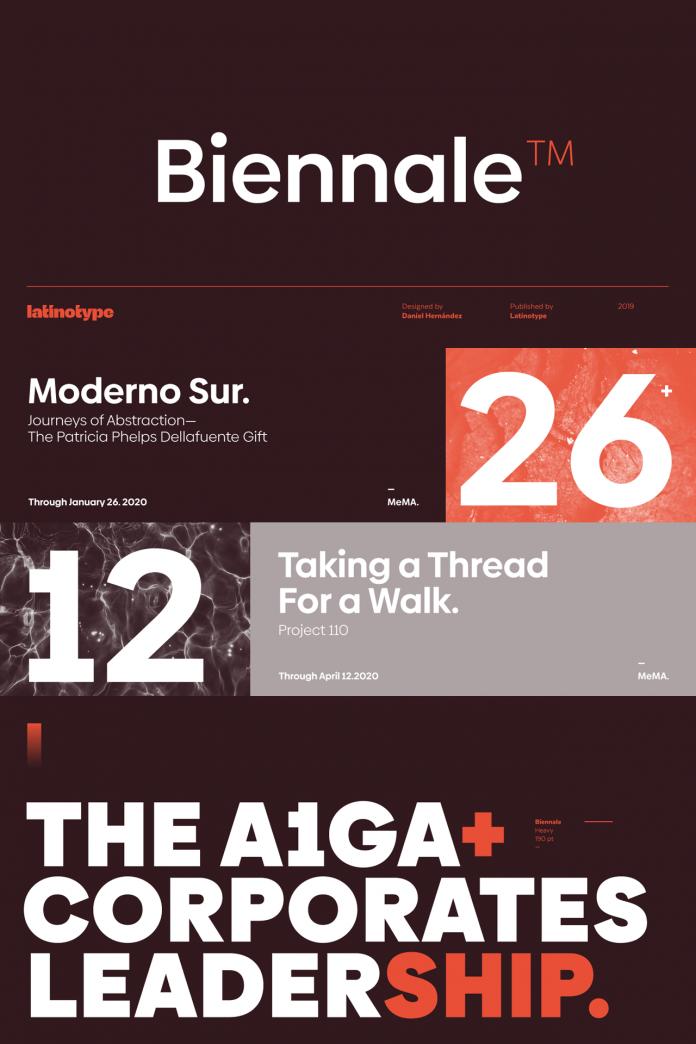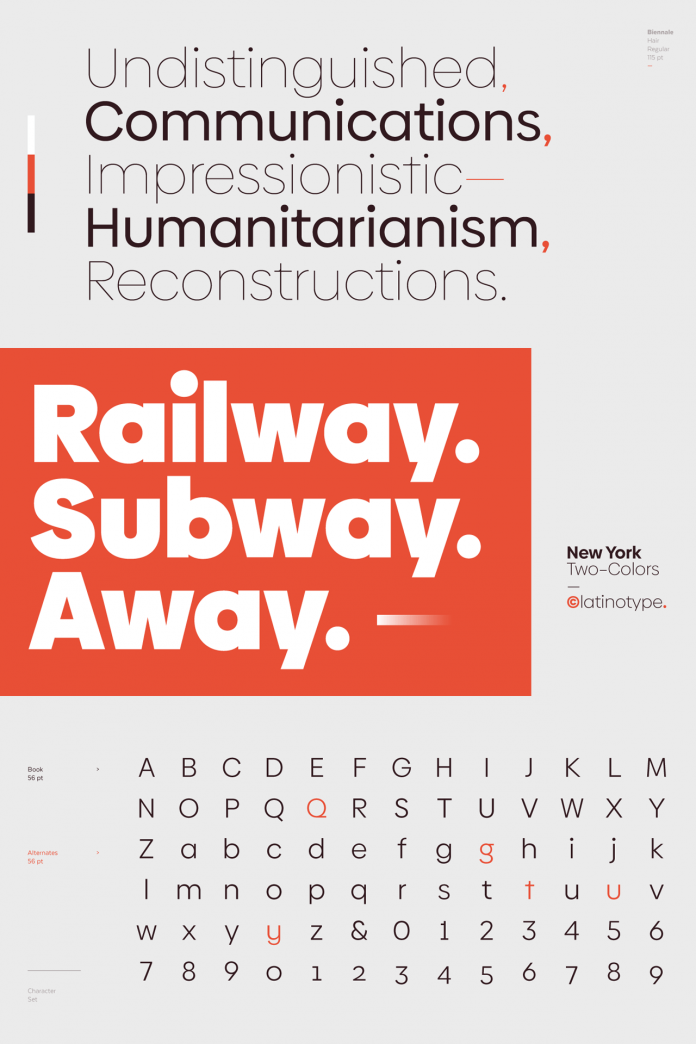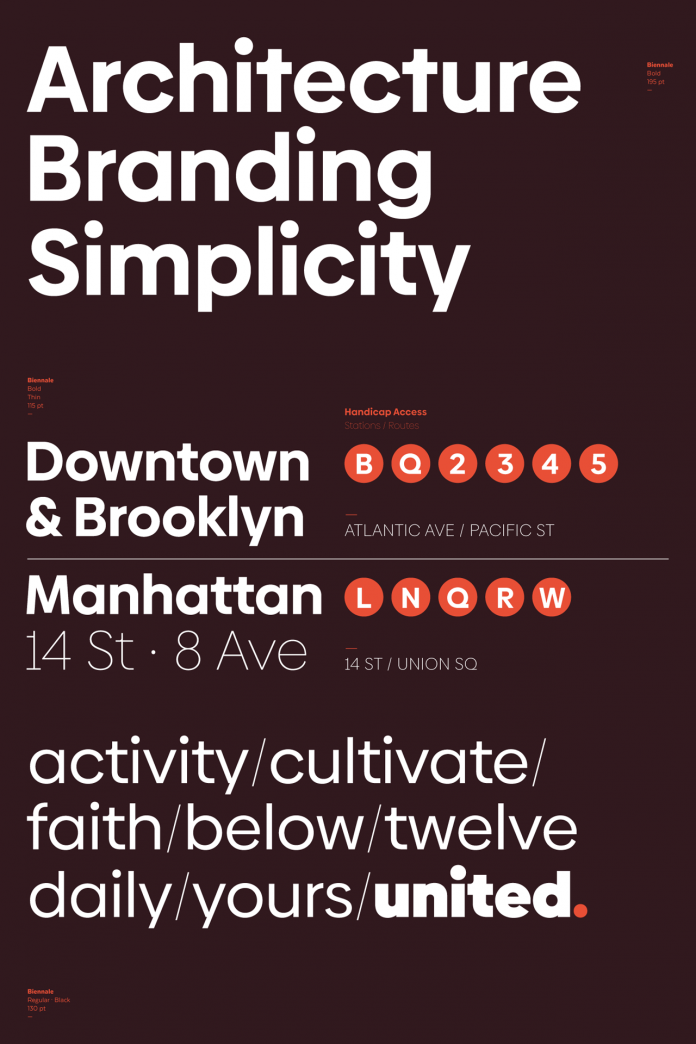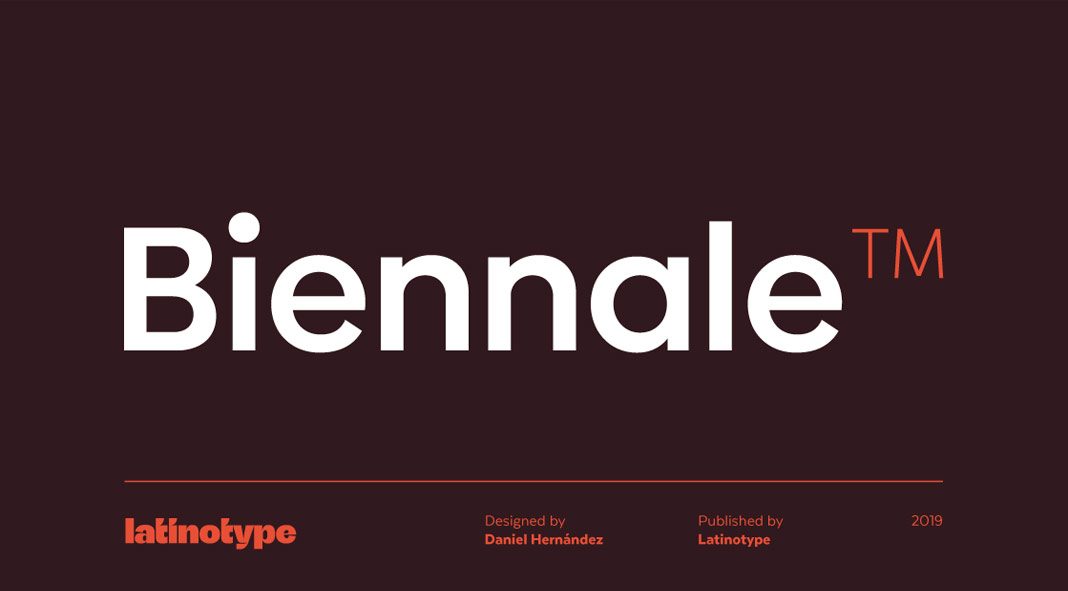
Biennale, a geometric font family for headlines or branding.
The people of foundry Latinotype seem to have worked overtime in 2019 since we could see a lot of new releases in the last few months. Designed by Daniel Hernández, the Biennale font family is characterized by a geometric typeface with a strong character and a large x-height. You can use it for plenty of applications such as headlines or different kinds of branding projects. The family is equipped with 11 weights ranging from Hair to Heavy plus matching Italics for each weight. Biennale’s standard set of 417 characters supports more than 200 Latin-based languages. To learn more, just click on the following link or have a look at the images below.